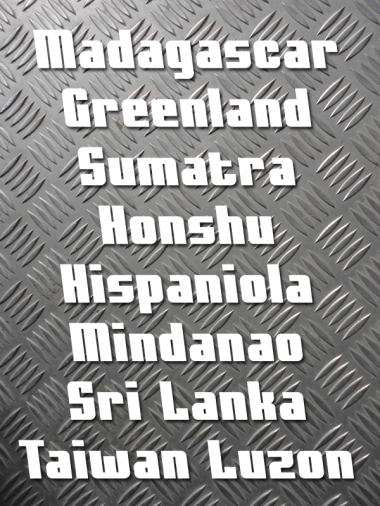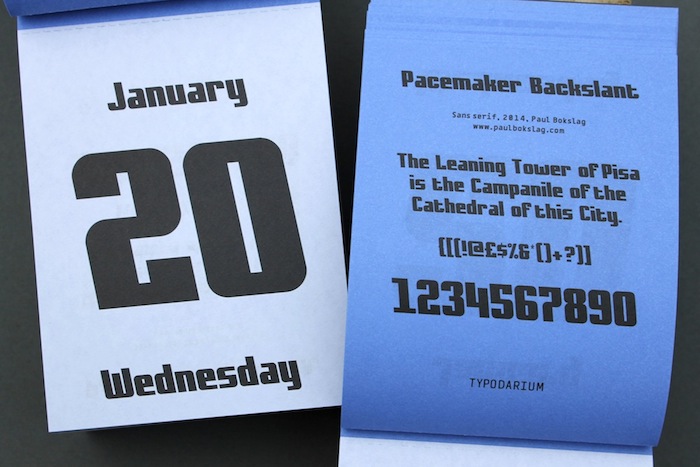
A very clean and strong design.
Nice and simple design, great demo pic. 10/10
You don't see many quality back-slant fonts like this - very nice work!
Out of curiosity, is there a standard version available?
Congratulations! FontStruct Staff have deemed your FontStruction worthy of special mention. “Pacemaker Backslant” is now a Top Pick.
@Bitmap Budgie: No standard or forward leaning version yet, but it shouldn't be too difficult to build.
Nice design.
Featured in Typodarium 2016.
I would like to get more left fonts. I dont understand why only right and not left side.  this font its nice.  contratulations.